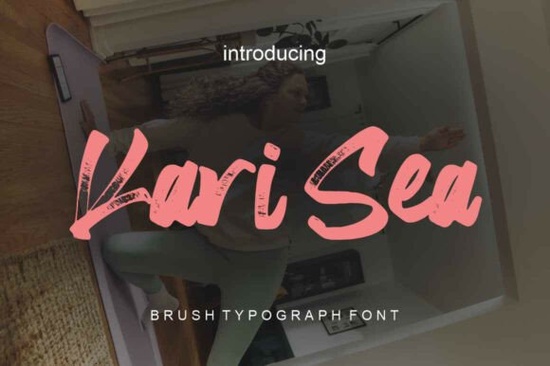
Finding the right typeface for a project often comes down to the feeling you want to convey. When you need something that feels personal and handcrafted, a brush script is usually the best choice. The Kari Sea Font is a great example of this style. It combines classic elegance with the fluid motion of handwritten letters. Whether you are designing a wedding invitation or a logo for a boutique, this typeface offers the refined look many creators search for.
Designers and small business owners often look for fonts that stand out without being too loud. This specific script fits that need by offering thin, flowing strokes that feel premium. It works well in the Script Fonts category because it balances readability with artistic flair. If you are working on digital creative projects or print materials, having a reliable brush font in your toolkit makes a significant difference.
What Makes This Script Font Stand Out?
The main appeal of this typeface lies in its characteristic brush strokes. Unlike standard serif or sans-serif options, it mimics the pressure and movement of a real pen. This gives every word a personal and aesthetic feel. The strokes are patterned and thin, which helps it look refined rather than messy.
Where Can You Use This Typeface?
Versatility is key when buying new design assets. This font is perfect for wedding invitation designs because it feels romantic and classy. It also works well for fashion brand logos where a vintage or retro-elegant vibe is needed. Here are a few specific uses:
- Wedding Invitations: The flowing style adds a formal touch.
- Fashion Logos: Ideal for boutiques and clothing brands.
- Greeting Cards: Makes handmade cards look professional.
- Aesthetic Quotes: Great for social media graphics and prints.
- Vintage Posters: Captures a classic, retro look effectively.
Because it is a display font, it is best used for titles and headings rather than long paragraphs of text. This ensures legibility remains high while maximizing the visual impact of the brush strokes.
Are There Similar Alternatives to Consider?
Quick Tips for Using Brush Scripts
To get the best results from this typeface, keep these practical tips in mind:
- Increase Letter Spacing: Brush fonts can look cramped if letters touch too much.
- Use High Contrast: Ensure the text color stands out against the background.
- Limit All Caps: Script fonts often look best in title case rather than all uppercase.
- Pair with Simplicity: Combine this script with a simple sans-serif for body text.
Choosing the right font is about matching the tool to the task. With its elegant strokes and premium feel, this script is a solid addition to any creative library. Whether you are a hobbyist making cards or a seller creating print-on-demand products, it provides the polish needed to make your work stand out.